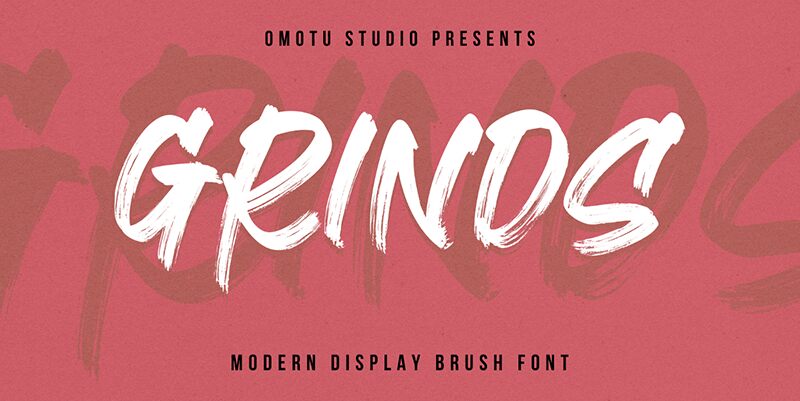
Grinds font is a passionate brush typeface from Omotu Studio. It features a hand-painted texture that gives it an energetic impression. An artistic flair, expressive character, and modern appeal are the details that embellish this free brush font. The overall appearance is bold with rough edges while the axis of strokes bends unevenly. Slanted at some angle, letters have sharp endings that contribute to the unusual visual of each letter.
Grinds is versatile enough for all kinds of creative works and design projects where beauty is sought after. Start by putting it on posters and packaging designs before any other item you have in mind. Give t-shirts a new look by carrying this brush typeface into apparel design projects. Popular uses also include headings, quotation posters, magazines, book covers, product labels, and branding materials among others.